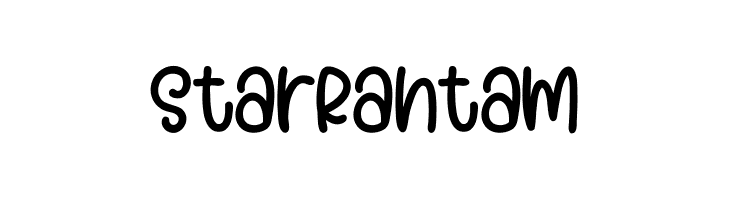
A playful, handwritten font with a casual and organic feel.
( Fonts by Beautypes )
A bold, brush-style font with an energetic and dynamic appearance.
A playful, hand-drawn font with tall, narrow letters and a whimsical style.
A modern script font with elegant, flowing cursive lines.
( Fonts by weknow - Wino S Kadir )
A whimsical, vine-like font with delicate, artistic curves.
A whimsical, vine-inspired font with elegant, thin lines and playful curves.
( Fonts by Hanoded )
A bold, playful font with rounded, hand-drawn characters.
( Fonts by Beautypes )
A playful, handwritten font with bold, rounded characters.
( BombHaus Digital Foundry )
A lively and expressive handwritten font with fluid strokes.
A bold, graffiti-inspired font with expressive, hand-drawn strokes.